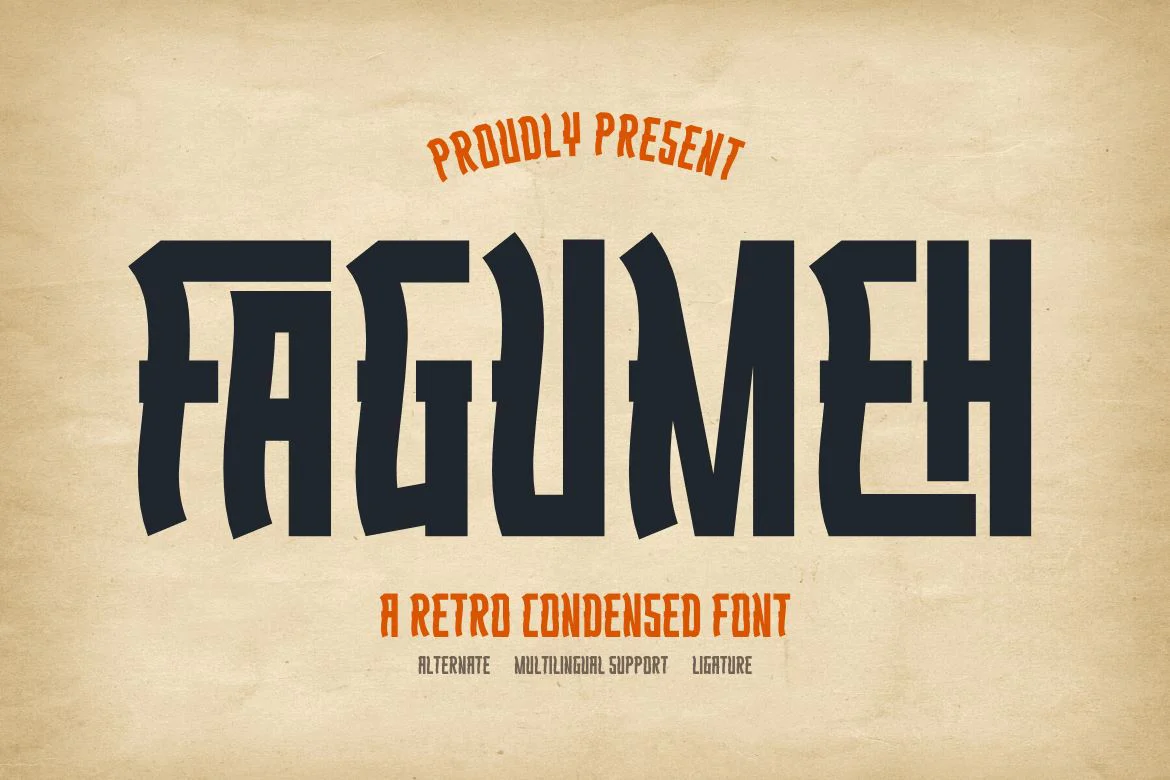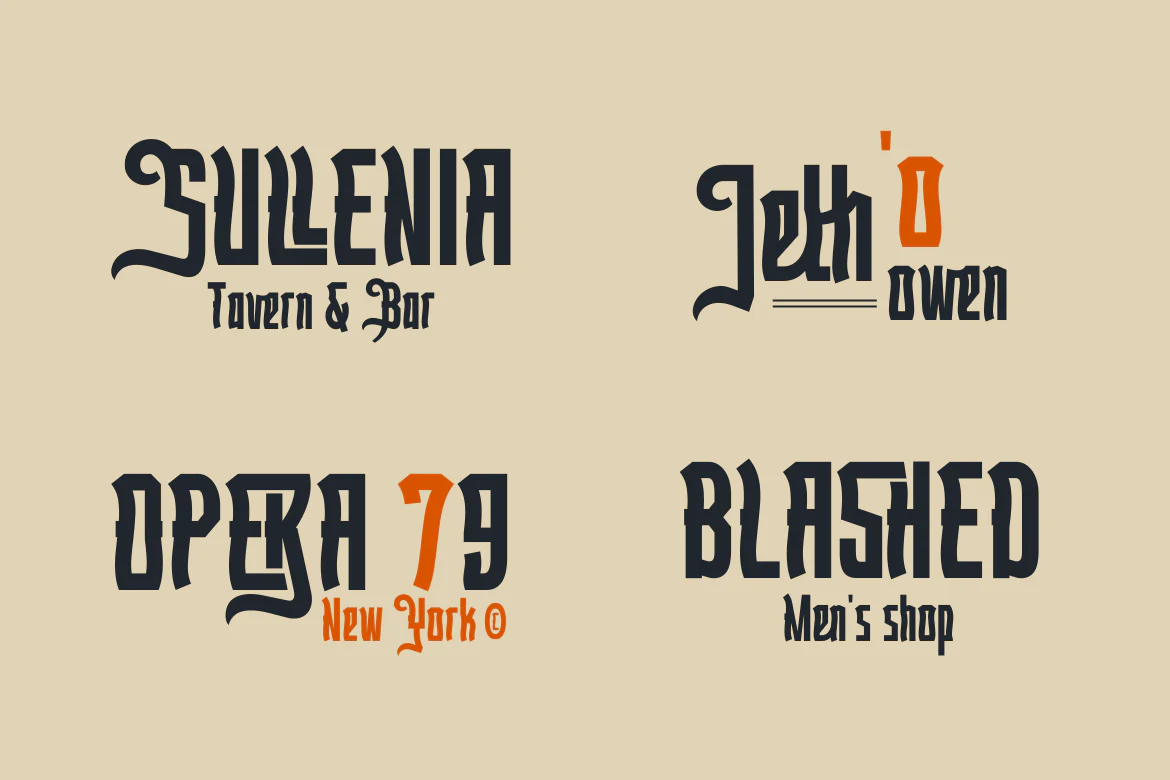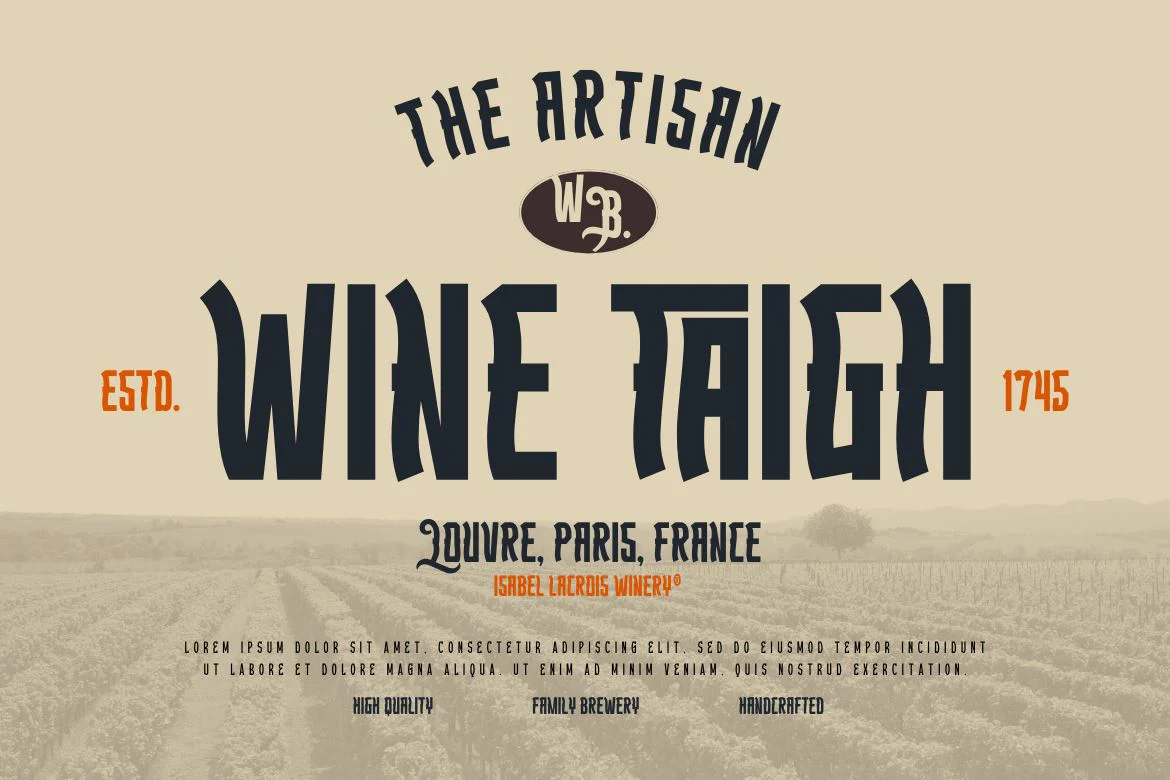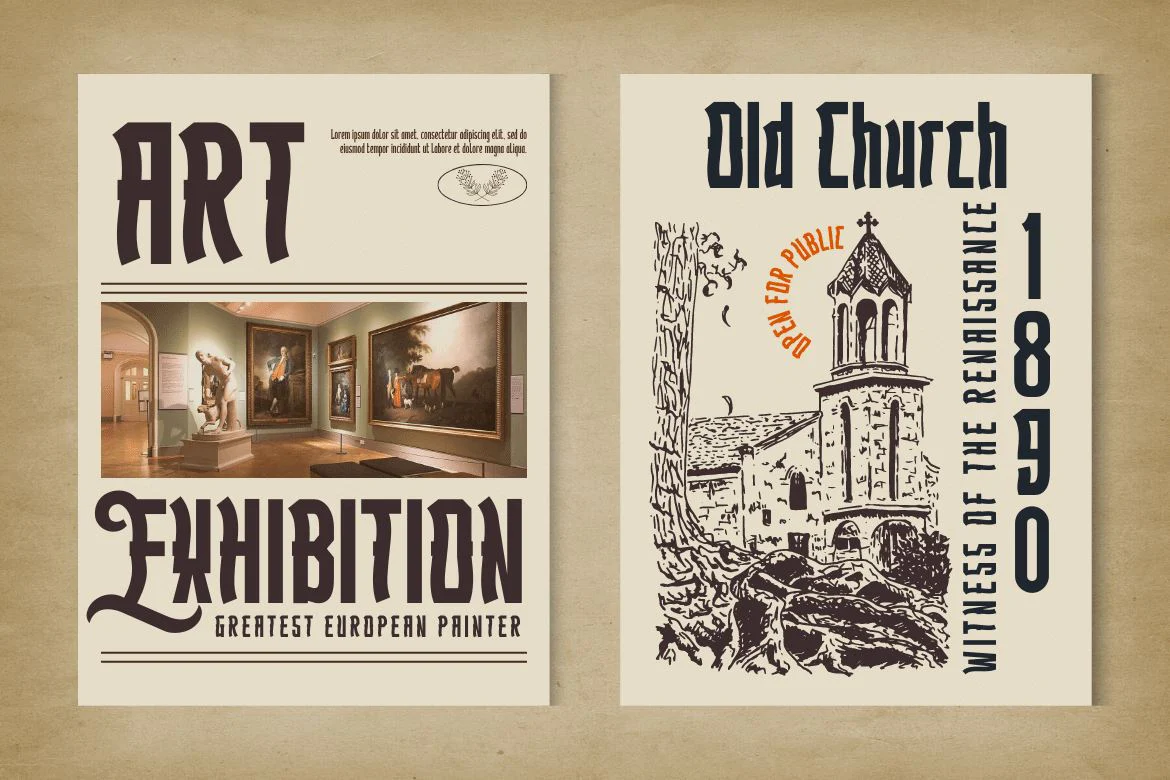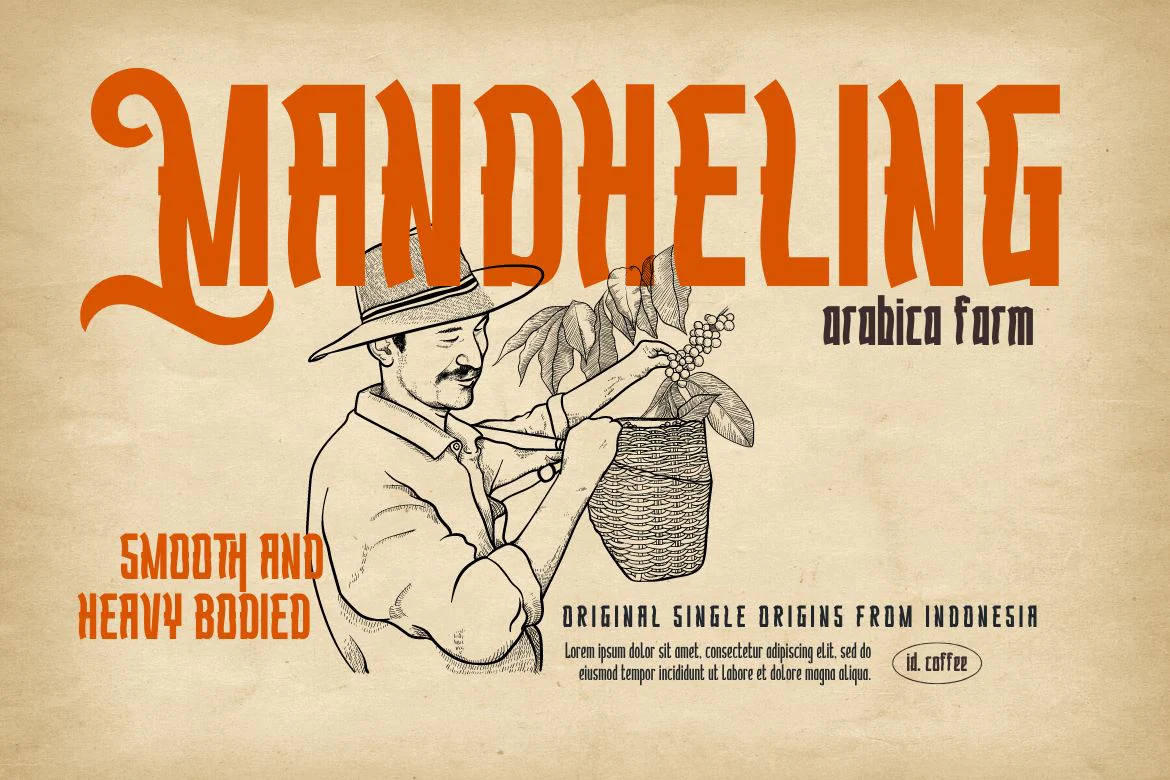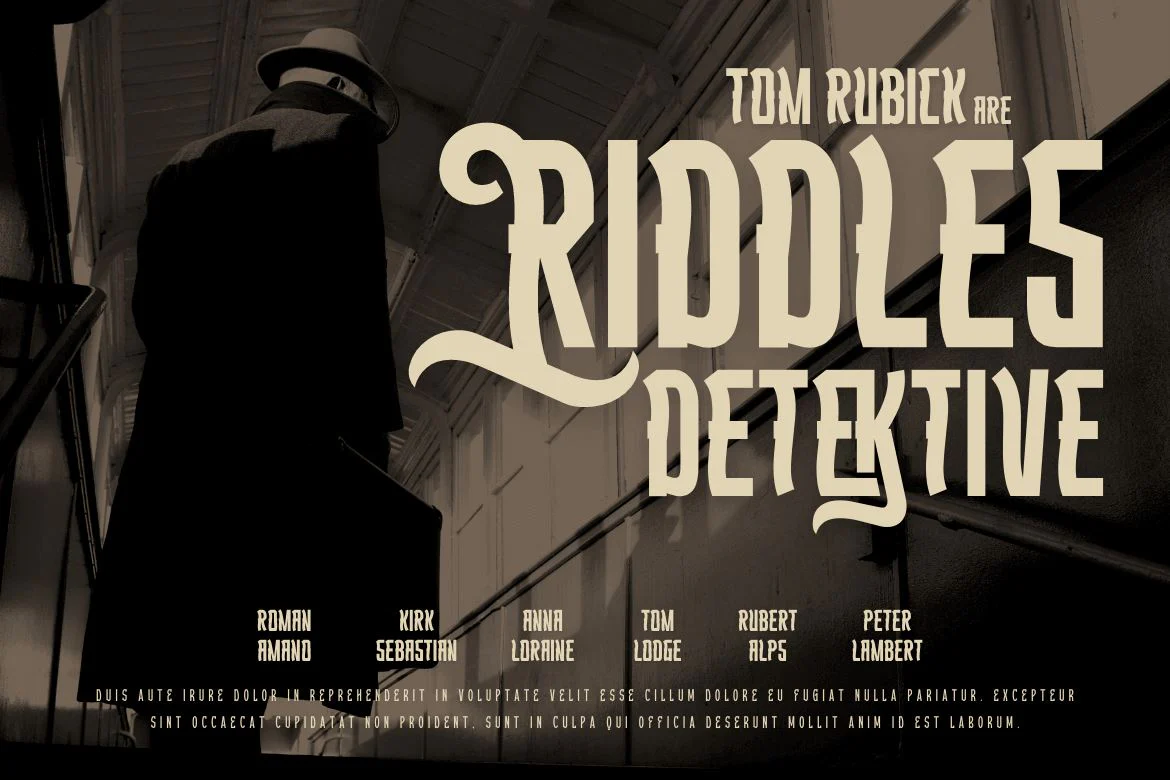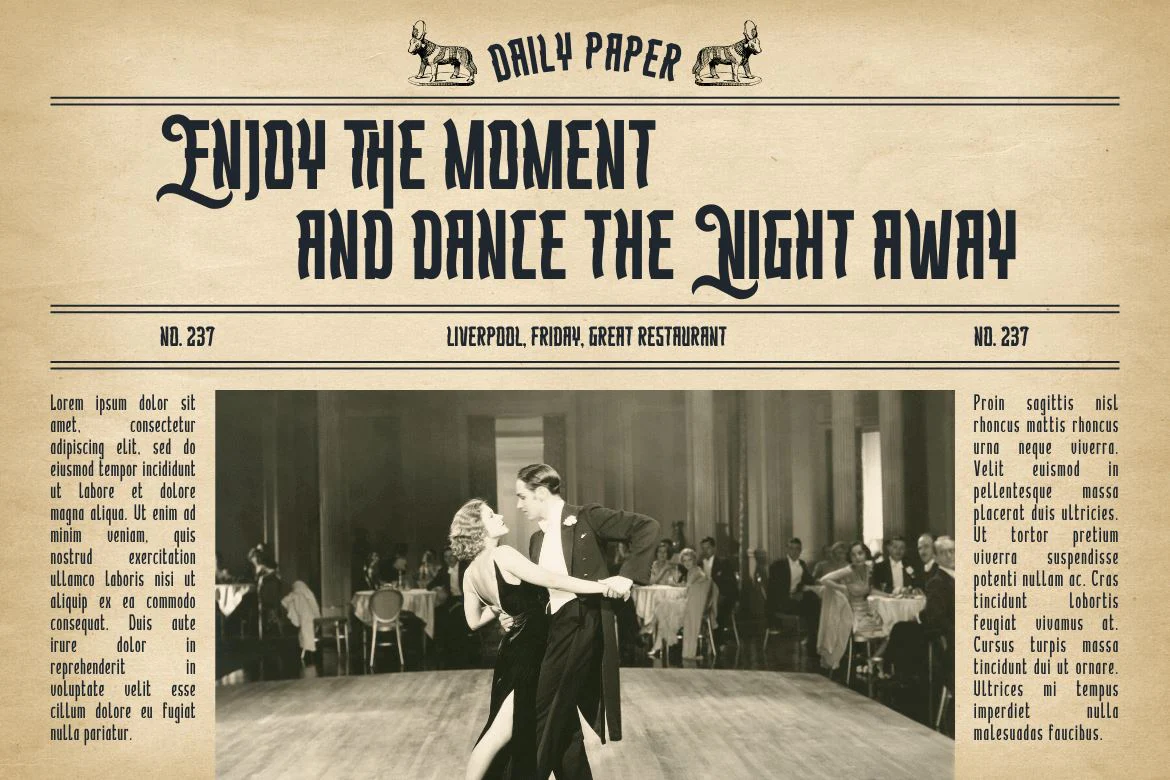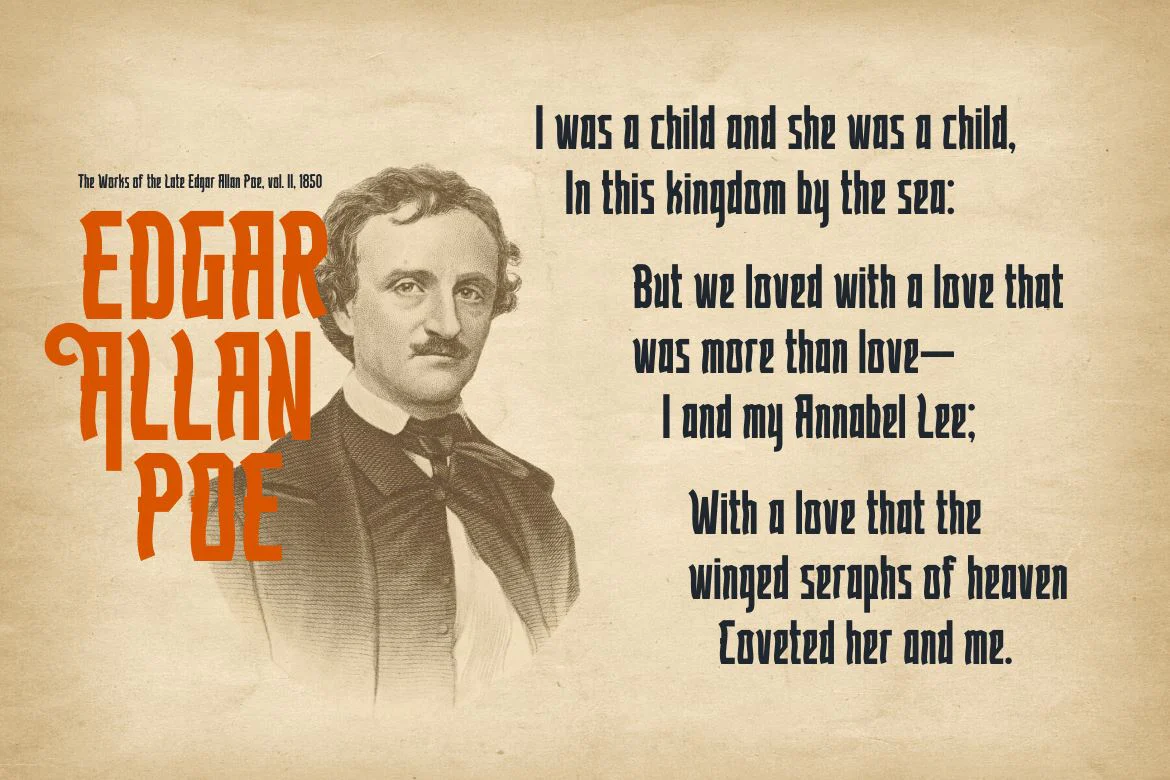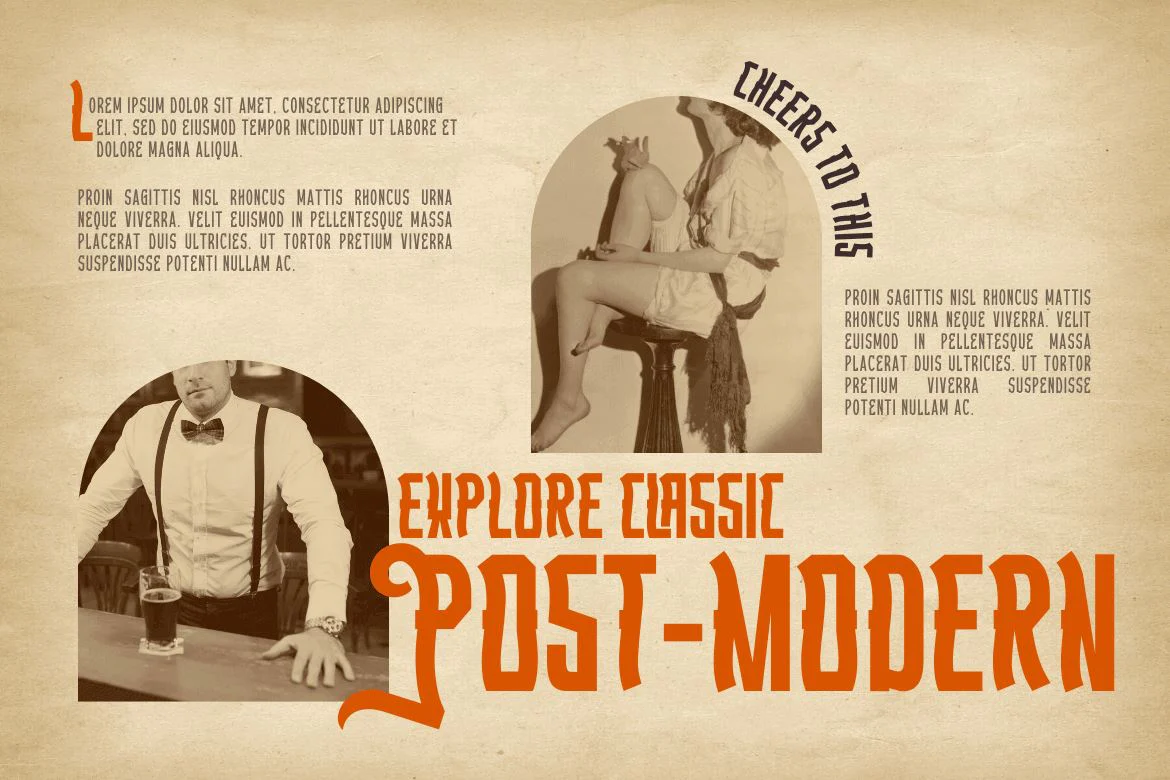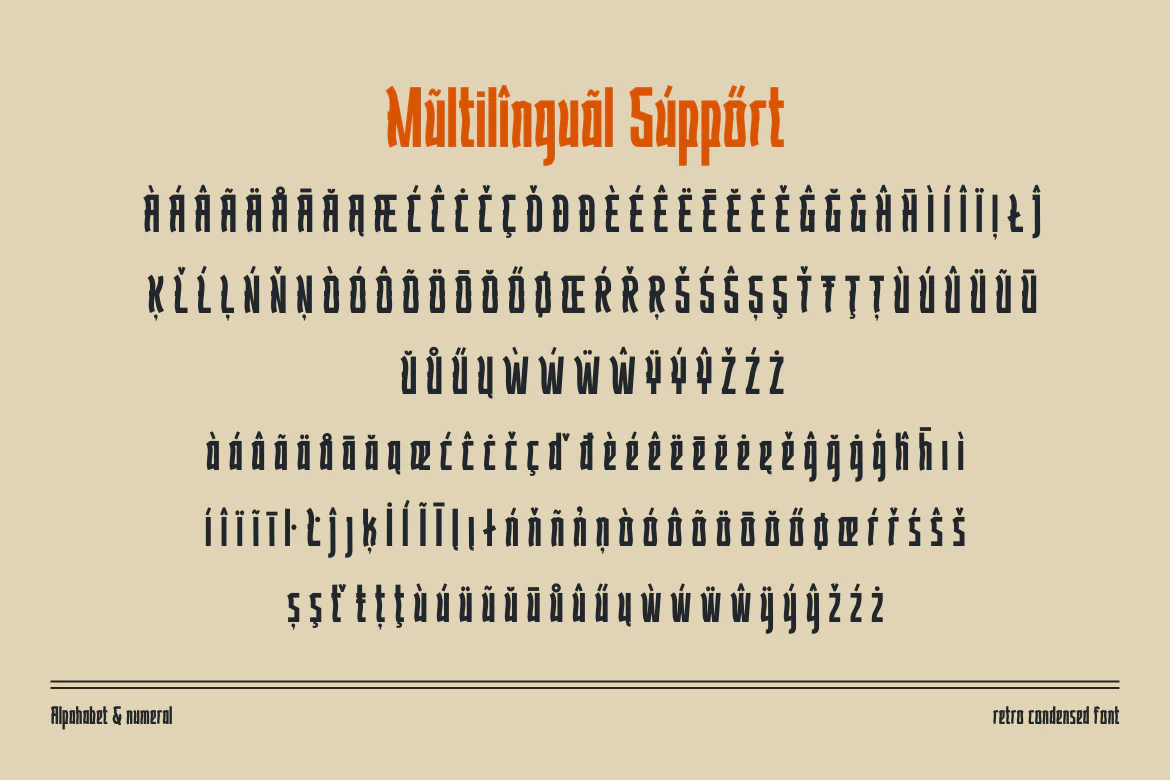
Fagumeh | Retro Condensed Font
Get ready to add a touch of vintage charm to your design projects with Fagumeh font!
This retro condensed font boasts a unique and high form, making it perfect for a wide range of design themes. Its stylistic sets and alternate characters offer a playful and distinct touch, while its unique ligatures add an extra touch of character. Fagumeh is the perfect font for any project that needs a touch of vintage flair and versatility. Upgrade your designs today with Fagumeh font.